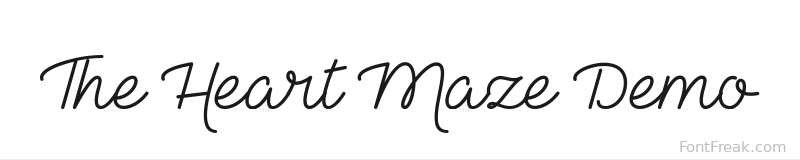
The Heart Maze Demo
About The Heart Maze Demo
The Heart Maze Demo is a beautifully crafted script font designed by Misti Hammers, offering a touch of elegance and whimsy. As a display font, it captures attention with its flowing, cursive style that exudes charm and personality. The strokes feature a medium weight with moderate contrast, allowing for legibility while still maintaining an artistic flair. The gentle curves and loops create a sense of movement, making it visually appealing for a variety of applications. The spacing is well-balanced, ensuring that each letter connects seamlessly, enhancing its overall fluidity.
This font is particularly suited for creative projects such as wedding invitations, where its romantic style can elevate any message. It also works wonderfully for branding small businesses, especially in the arts and crafts sectors, where a personal touch is essential. Additionally, The Heart Maze Demo is perfect for restaurant menus, adding a distinctive character that draws diners in. Content creators will find it ideal for social media graphics, as it stands out in a crowded feed with its unique flair.
What sets The Heart Maze Demo apart is its ability to convey emotion through typography. The combination of its artistic curves and legible design makes it not just a font, but a statement piece that captures the essence of creativity and personal expression. Whether used in print or digital formats, this font will undoubtedly leave a lasting impression.